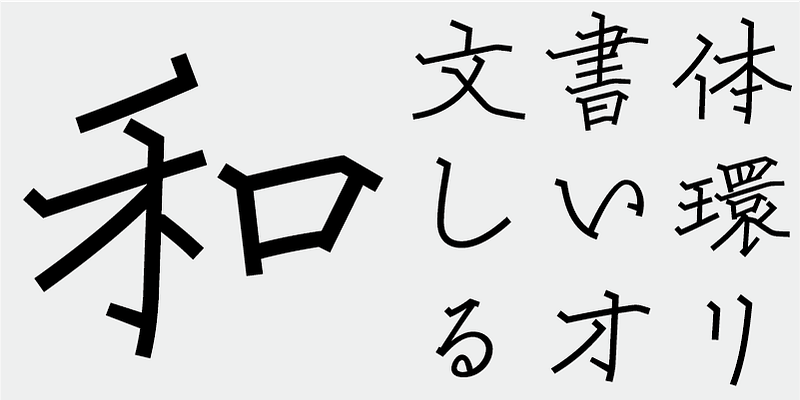
AB Kai Light Font Free Download is a graceful and airy Japanese-style typeface inspired by traditional "kai-sho" (regular script) calligraphy, presented in a light, elegant weight. With its delicate brush-like strokes and balanced form, this font is perfect for cultural design projects, minimalist packaging, poetry, wellness branding, and any creative work that calls for a subtle, refined touch.
The lightness of AB Kai Light brings a sense of calm and openness to your typography. Its characters flow with precision and poise, echoing the care and craftsmanship of handwritten Japanese script. Despite its calligraphic roots, the font is clean and versatile enough to suit both traditional and contemporary design aesthetics.